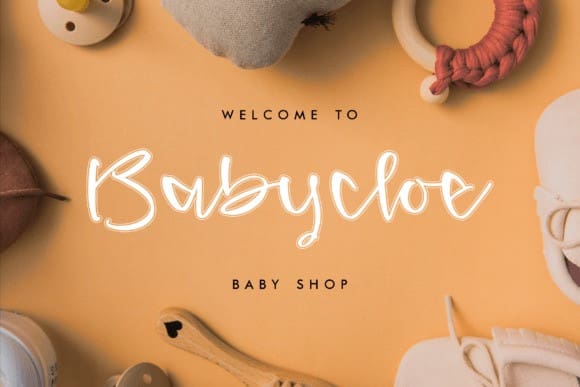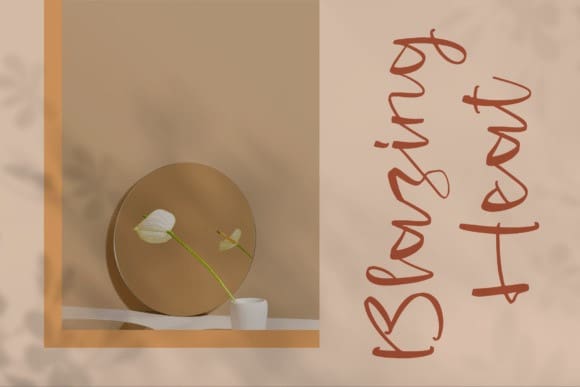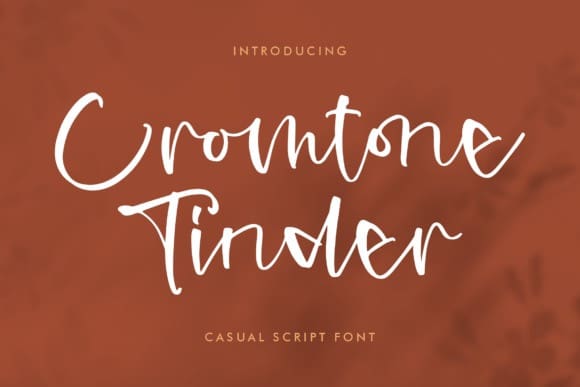
Cromtone Tinder Font
Cromtone Tinder Font is a unique script font, suitable for any projects such as logos, branding projects, homeware designs, product packaging, mugs, quotes, posters, shopping bags, t-shirts, book covers, name card, invitation cards, greeting cards, label, photography, watermarks, special events, and all your other lovely projects that need a beautiful handwritten touch.